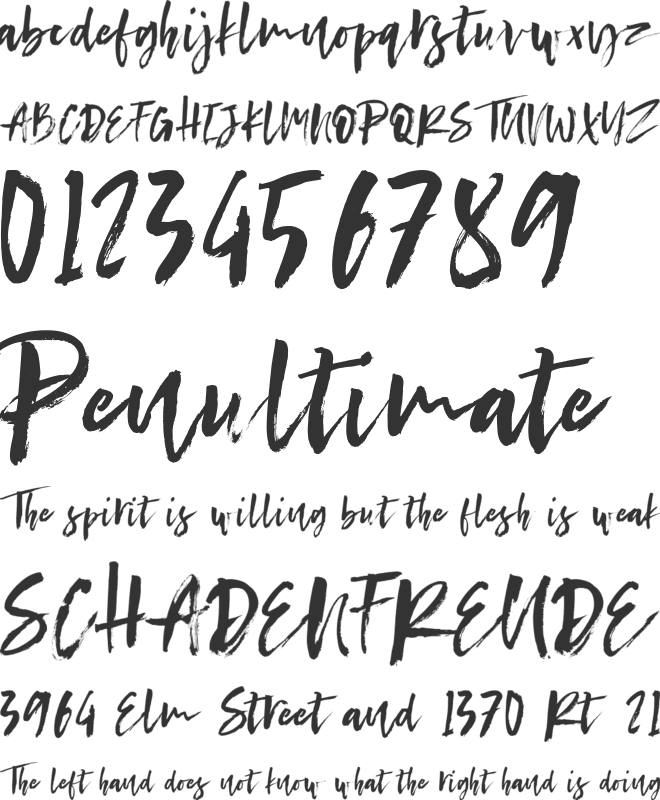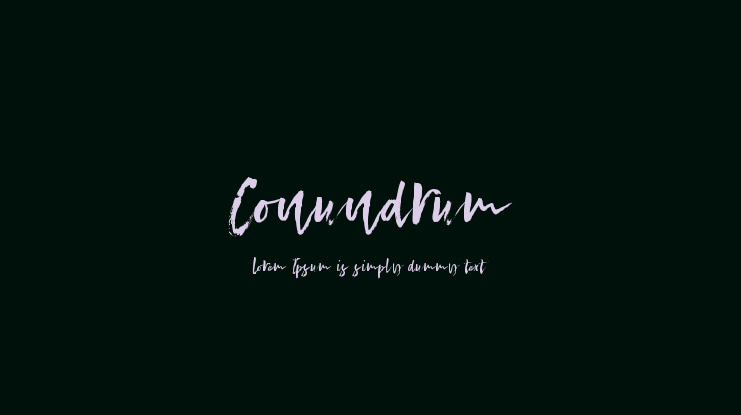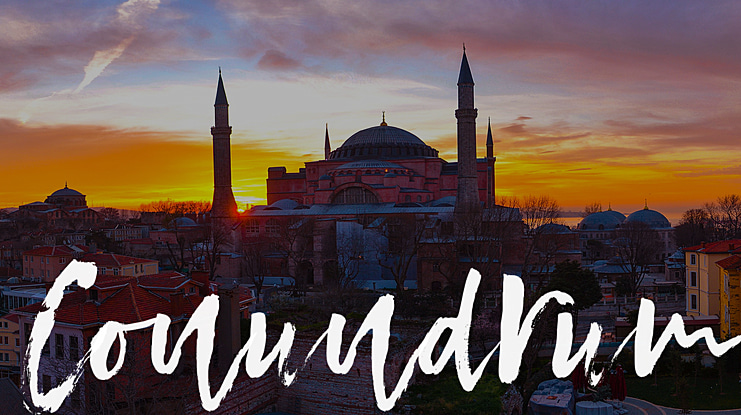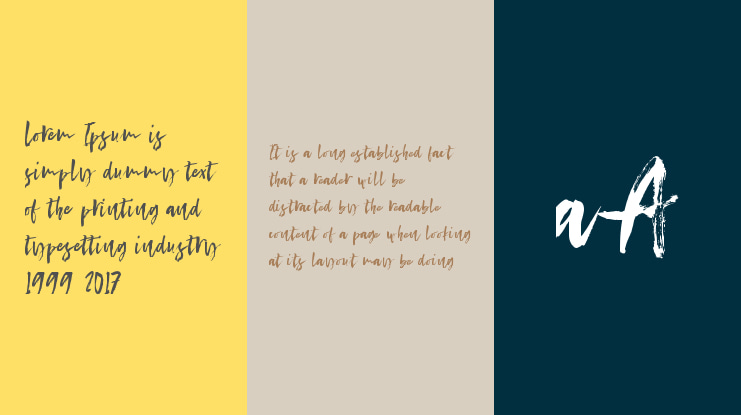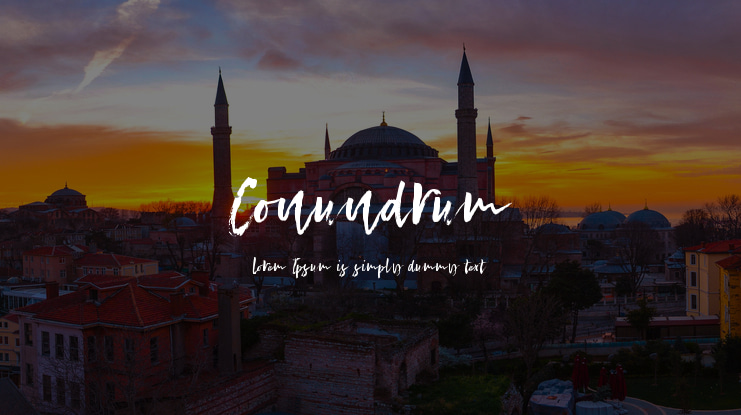
Conundrum Font
Eko Kurniawan | Letteratom™
Conundrum is a cool and rough brush font. Quickly painted on paper, it looks natural and incredibly organic.